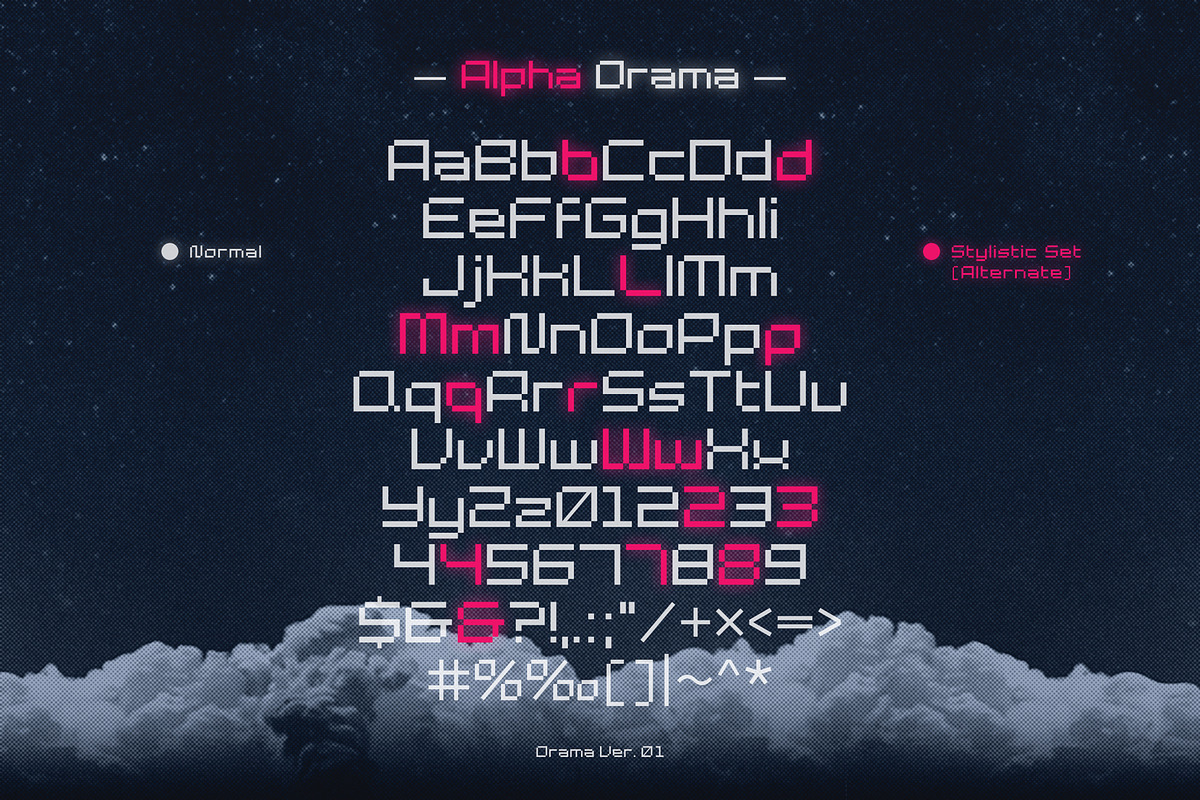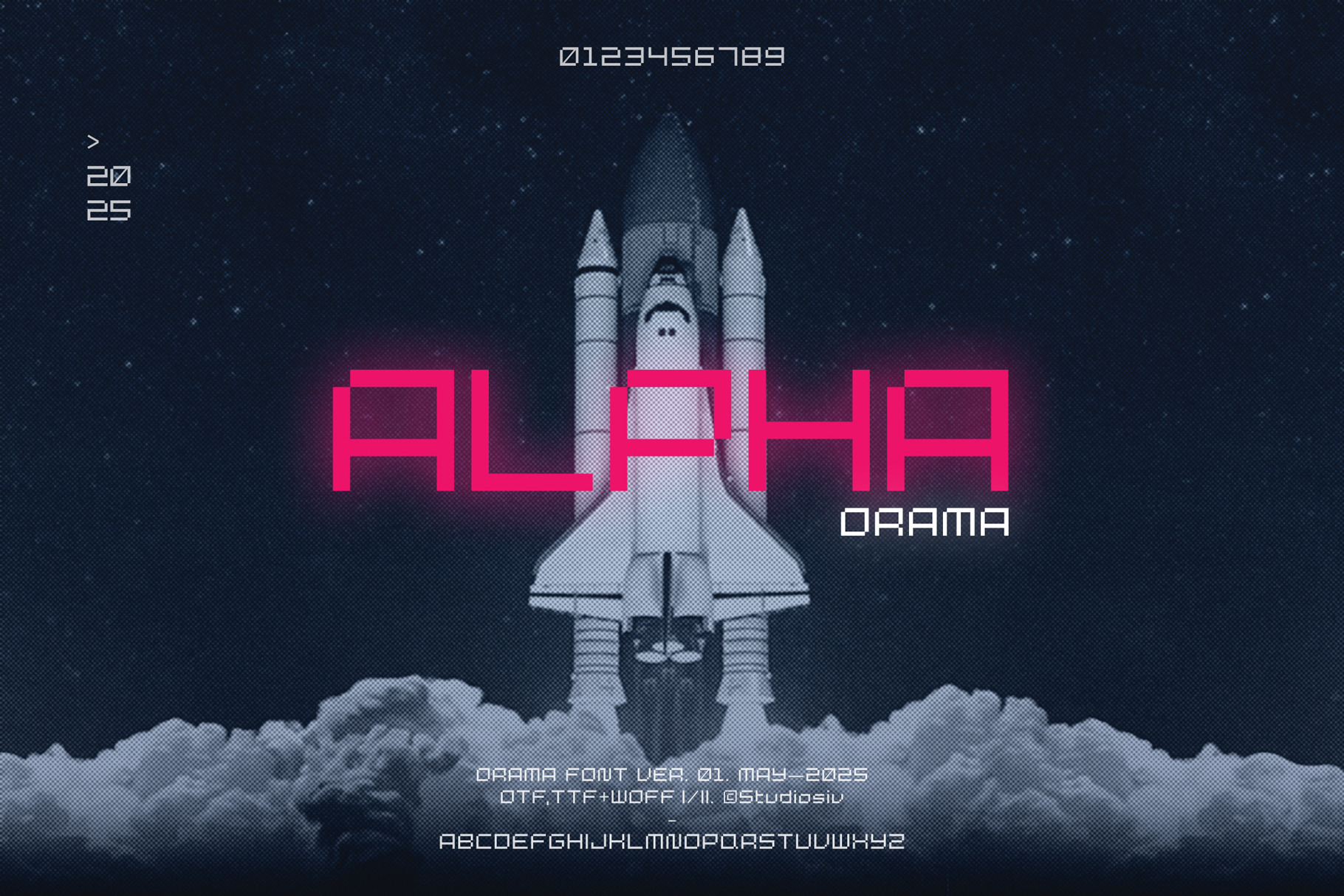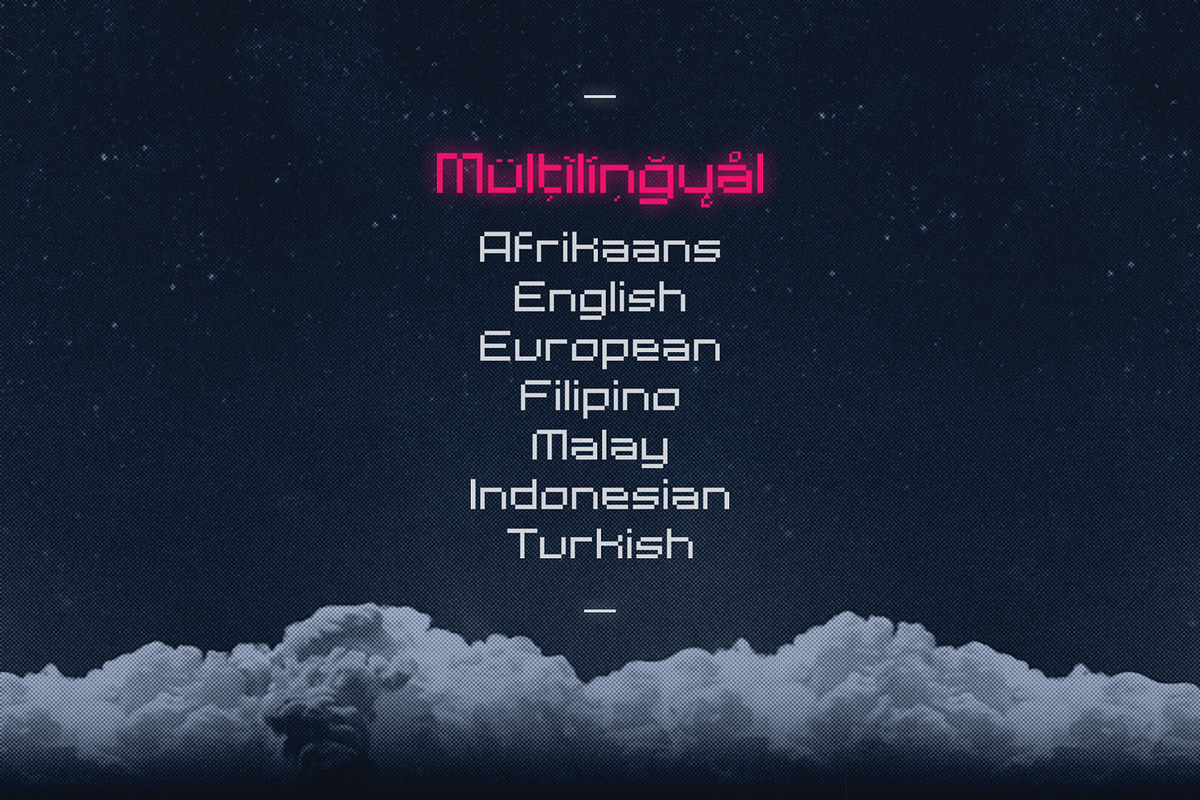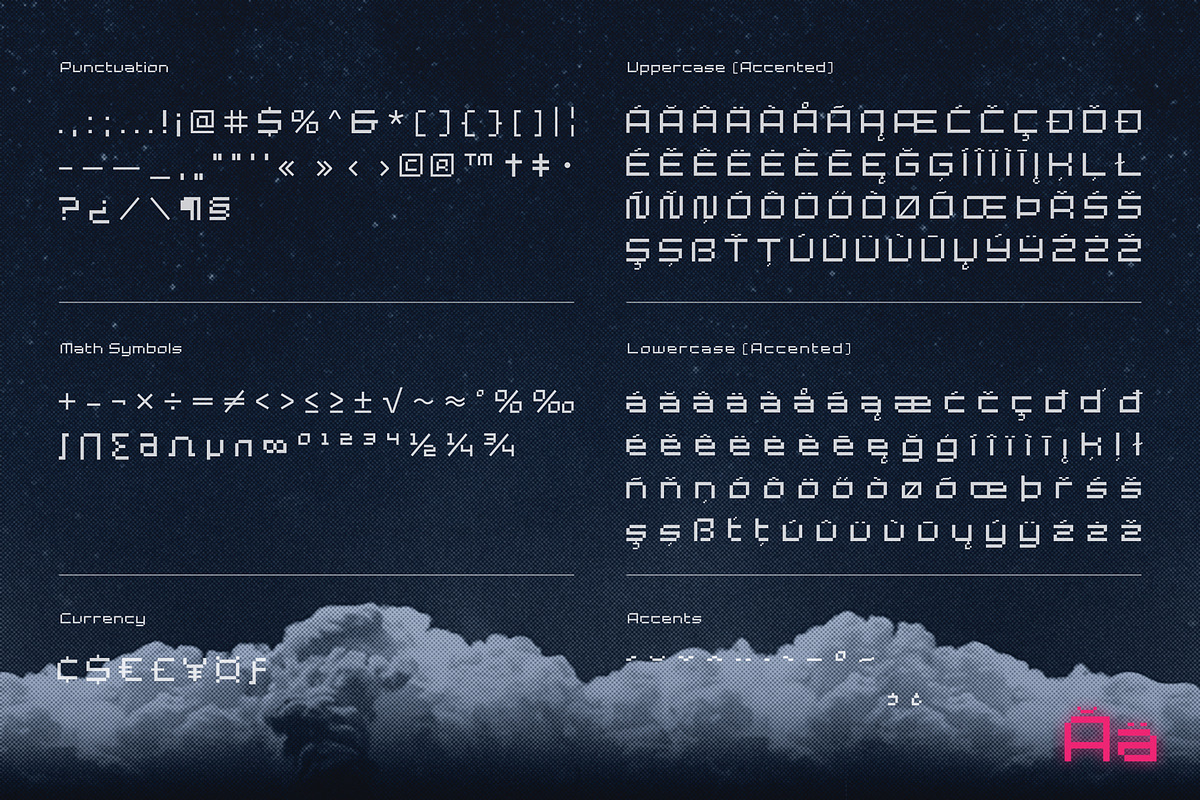
Alpha Orama - Futuristic Pixel Font
Alpha Orama is a futuristic pixel font.
- 2 Styles (Normal & Wide with Alternate)
- Stylistic Set Feature
- Supports over 36 Languages